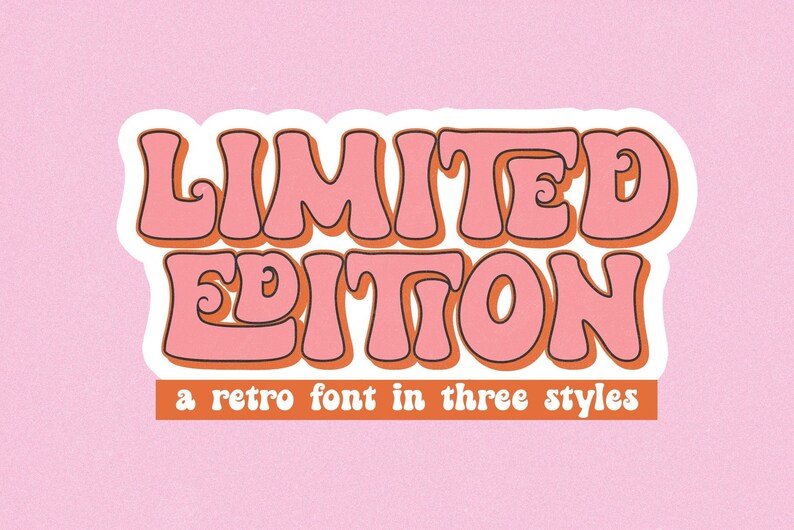
Limited Edition Font
Limited Edition Font - This font comes with a regular solid version, fonts work together to layer your perfect vintage design!. Limited edition was designed to bring together modern design and that popular 1960's retro style that everyone loves.